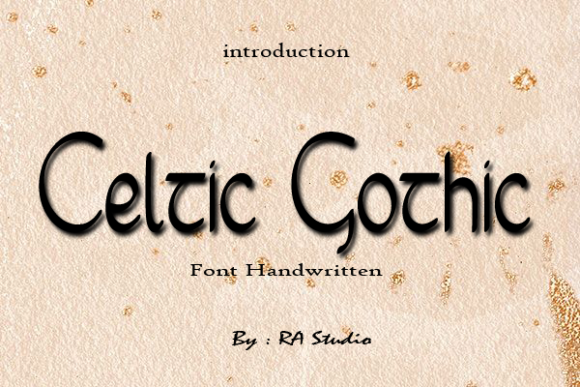
Celtic Gothic Font
About Celtic Gothic Font
Celtic Gothic is a cute and adaptable handwritten font. It will look stunning on any poster, flyer or print.